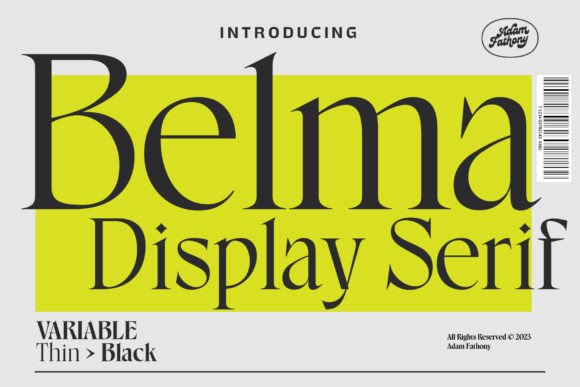
Discover the Elegance of Belma Font: Elevate Your Designs with Style
I’ll never forget the time I was working on a project for a high-end client, and I was struggling to find the perfect font to match their brand’s sophisticated aesthetic. I had spent hours scouring the internet, trying out different fonts, but nothing seemed quite right. That was when I stumbled upon Belma Font, and it changed the game. With its stylish serif and minimalist design, Belma brought a level of elegance and modernity to my project that I had been missing. In this article, I’ll share my experience with Belma, its features, and how to make the most of it in your designs.
A Personal Review of Belma Font
- ✨ Elegant and Modern Design: Belma’s stylish serif and clean lines make it perfect for projects that require a touch of sophistication.
- ✅ Versatility: This font is suitable for a wide range of applications, from luxury branding to editorial design.
- 💡 OpenType Features: Belma comes with a range of OpenType features, including stylistic alternates and glyphs, which allow for endless creativity.
While Belma is an excellent font, there are a few things to keep in mind:
- 🤔 Limited Use in Body Text: Due to its elegant and modern design, Belma may not be the best choice for large blocks of body text. It’s better suited for headings and titles.
- ⚠️ Requires Attention to Kerning: As with any font, it’s essential to pay attention to kerning to ensure that your text looks its best.
The Story Behind Belma Font
Belma was designed with the goal of creating a font that exudes elegance, modernity, and minimalism. The designer, inspired by the works of renowned typographers, aimed to craft a font that would be both timeless and contemporary. Through a combination of traditional techniques and modern technology, Belma was born – a font that is both stylish and versatile.
| Author | Adam Fathony |
Q: What is Belma Font best suited for?
A: Belma Font is best suited for projects that require a touch of elegance and sophistication, such as luxury branding, editorial design, and high-end marketing materials.
Q: Can I use Belma for body text?
A: While Belma can be used for body text, it’s better suited for headings and titles due to its elegant and modern design.
Q: Does Belma come with OpenType features?
A: Yes, Belma comes with a range of OpenType features, including stylistic alternates and glyphs, which allow for endless creativity.
Q: Is Belma suitable for digital use?
A: Yes, Belma is optimized for both print and digital use, making it a versatile font for a wide range of applications.